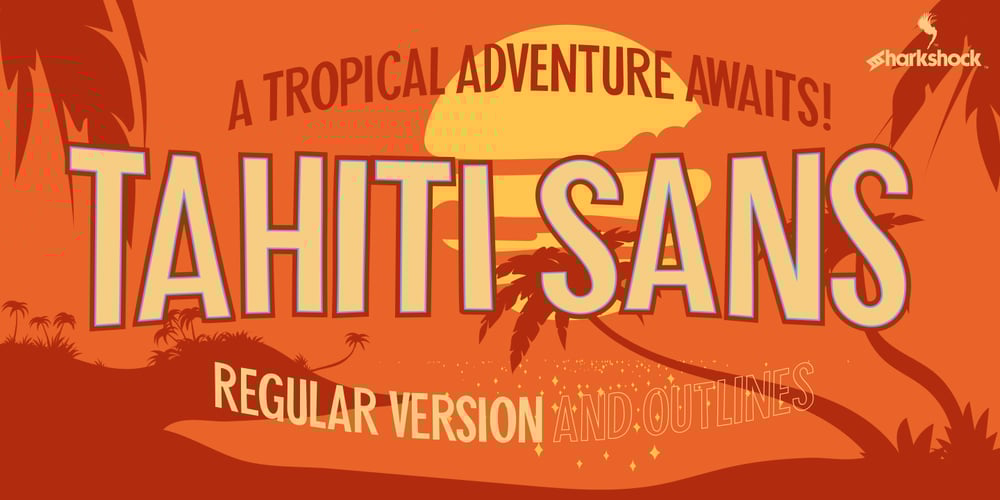
Tahiti Sans Font Family was designed by Dennis Ludlow and published by Sharkshock. Tahiti Sans contains 2 styles and family package options. Tahiti Sans is a playful, all caps display sans available in 2 versions. At first glance it appears to be the offspring of a rather uniform font and a wacky one. The variations of letterforms as well as random angles are minimal. They’re tall by nature so squeezing text into tight spaces should be easy. Characters are slightly jumbled in a childlike manner and misaligned with varying degrees of spacing. Use it for youth sports, social media, toy packaging or advertising.